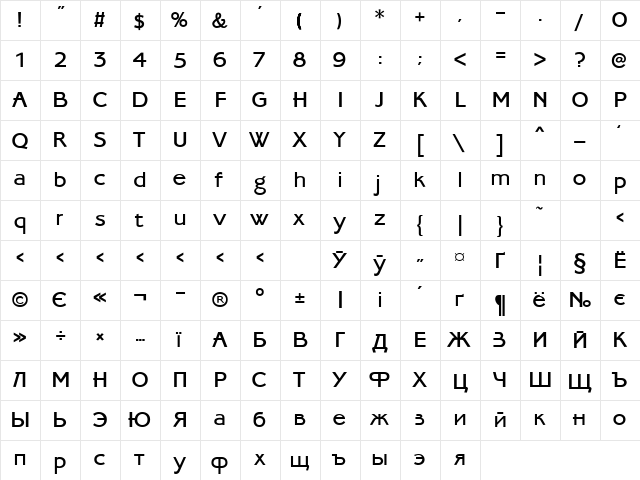
UkrainianAmbassadoreType Regular
Design Context for UkrainianAmbassadoreType Typeface
UkrainianAmbassadoreType takes a measured approach to typography — its balanced proportions and neutral character make it a reliable workhorse for both digital and print work.